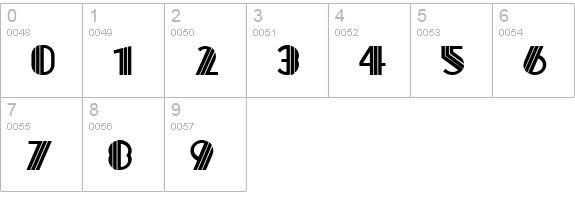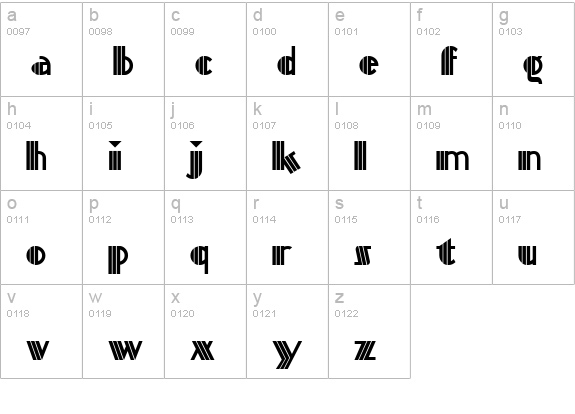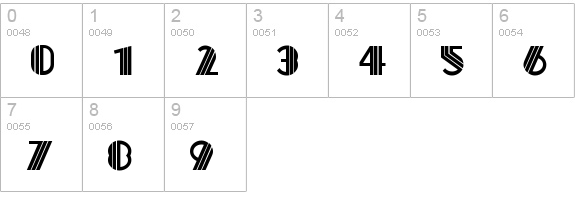
Titanick Display NF Font Details
Titanick Display NF font is a striking and modern typeface that commands attention with its bold and powerful presence. Designed to make a statement, this font is perfect for headlines, titles, and other display purposes where impact is essential. With its clean lines and sharp edges, Titanick Display NF exudes confidence and sophistication. What sets this font apart is that it is available for free download at FontsMarket.com. This means that you can easily access and use this impressive typeface in your projects without any cost. Whether you're designing a poster, logo, or any other creative piece, Titanick Display NF is sure to leave a lasting impression. Embrace the boldness and elegance of Titanick Display NF font to elevate your designs to new heights.